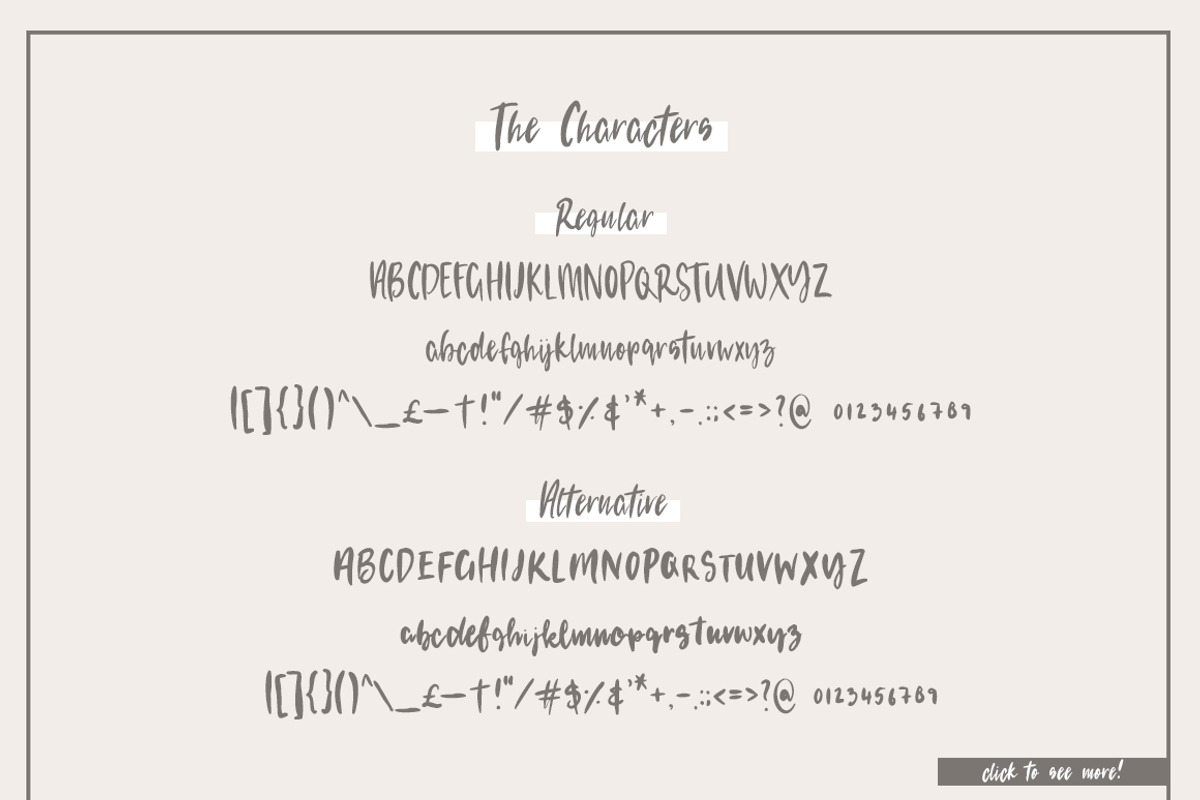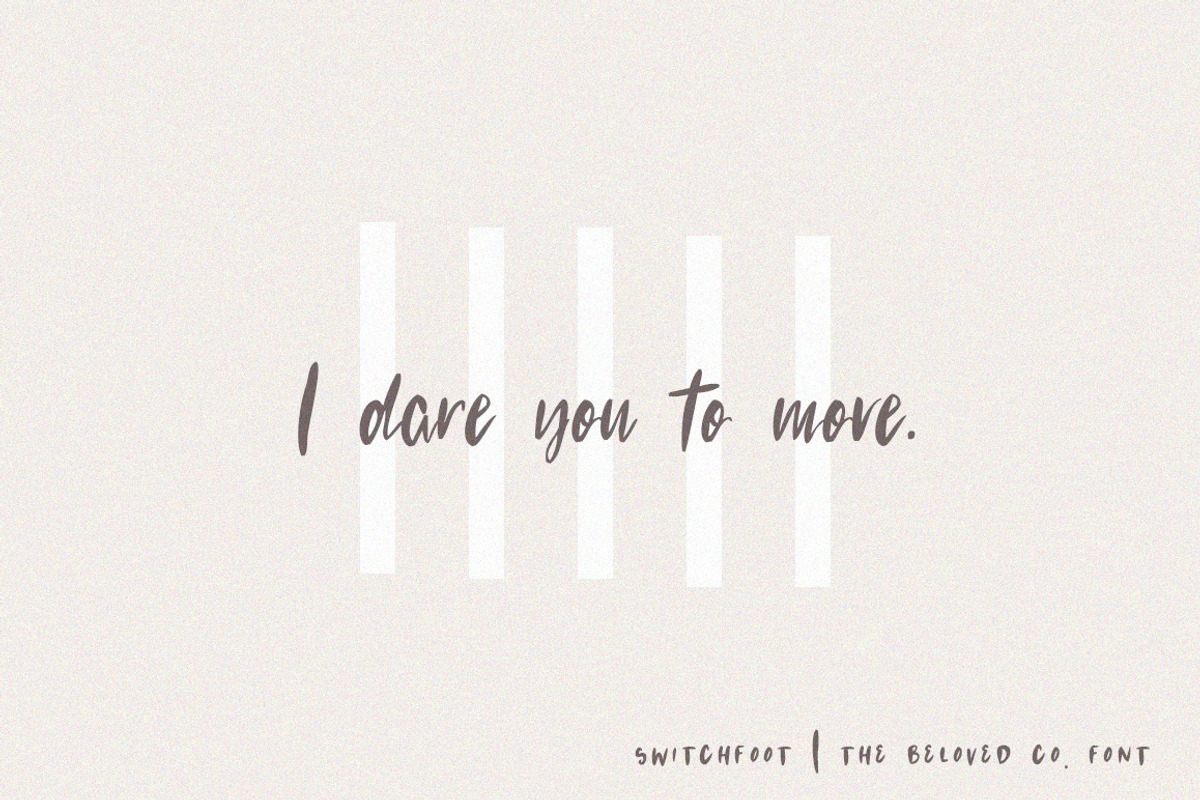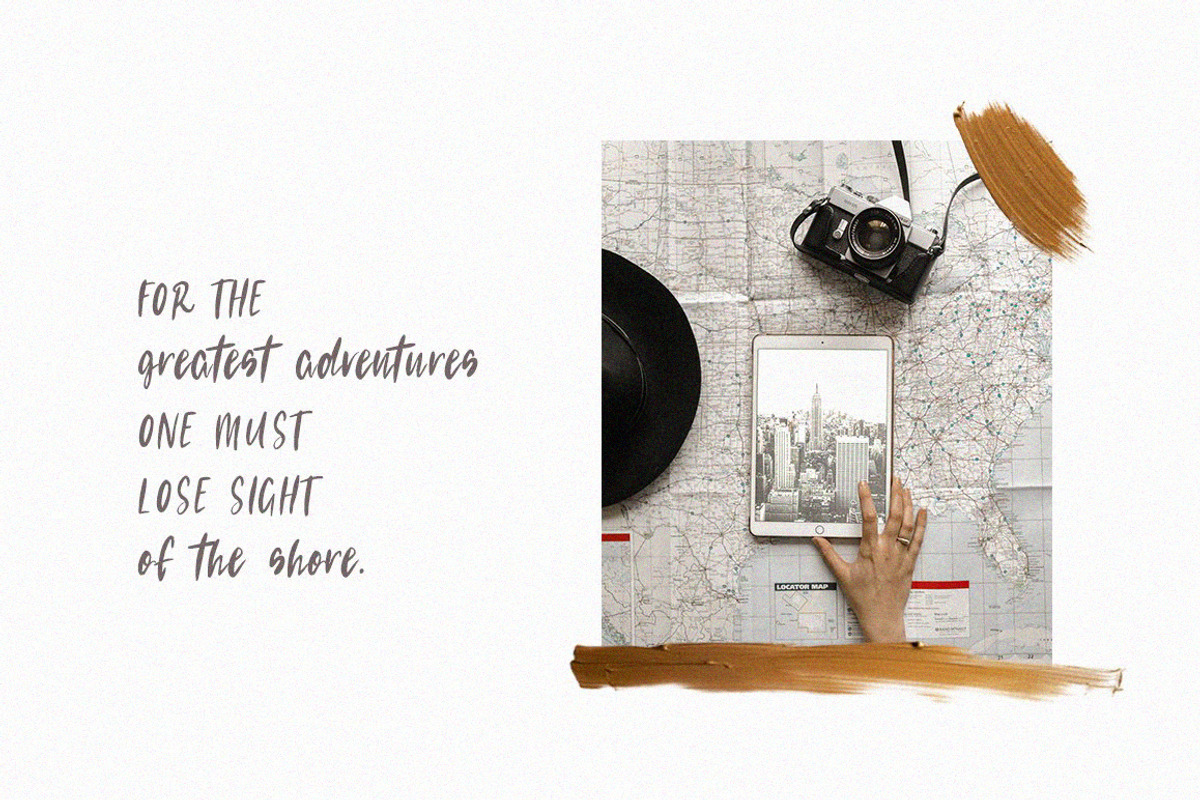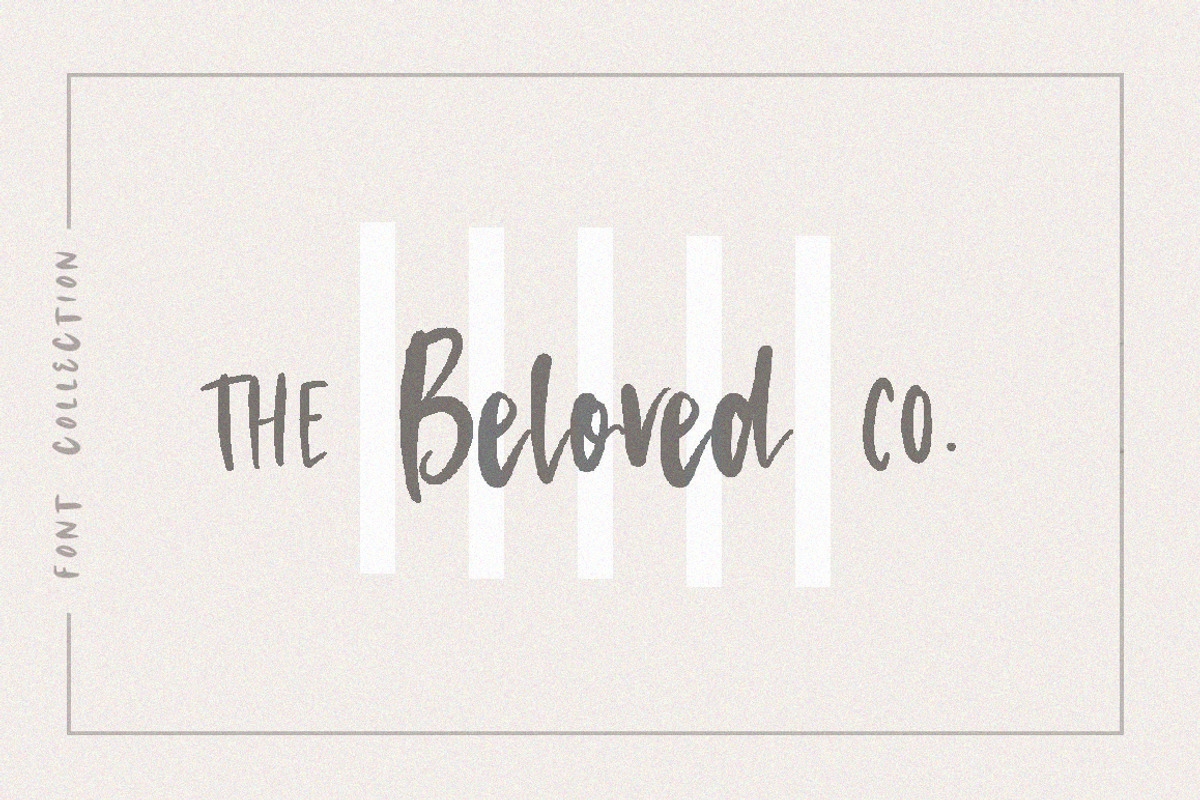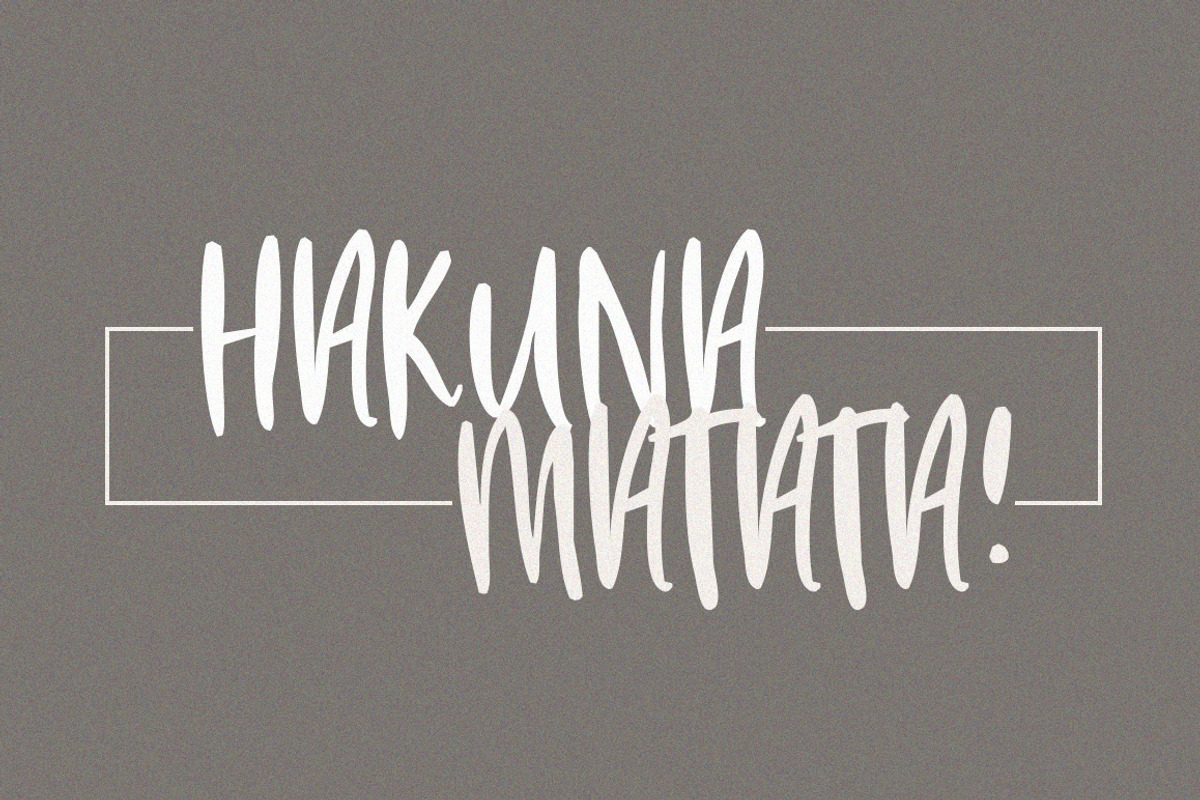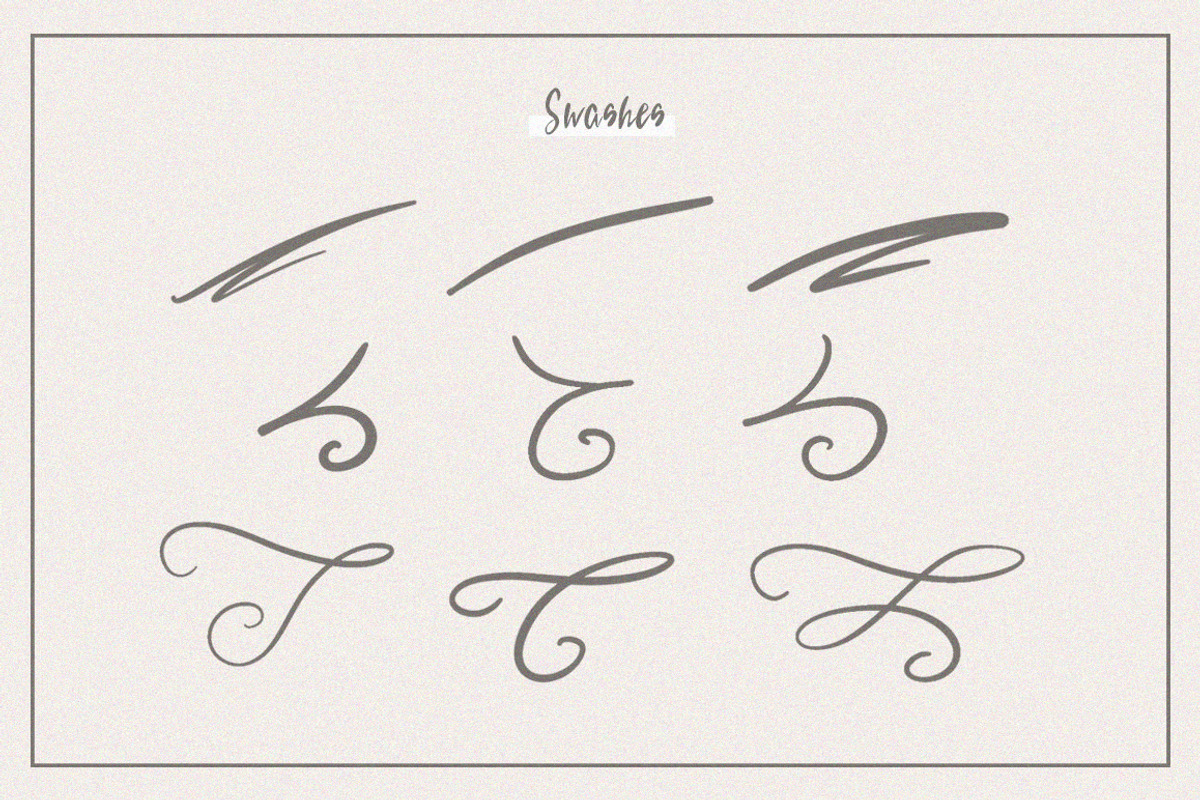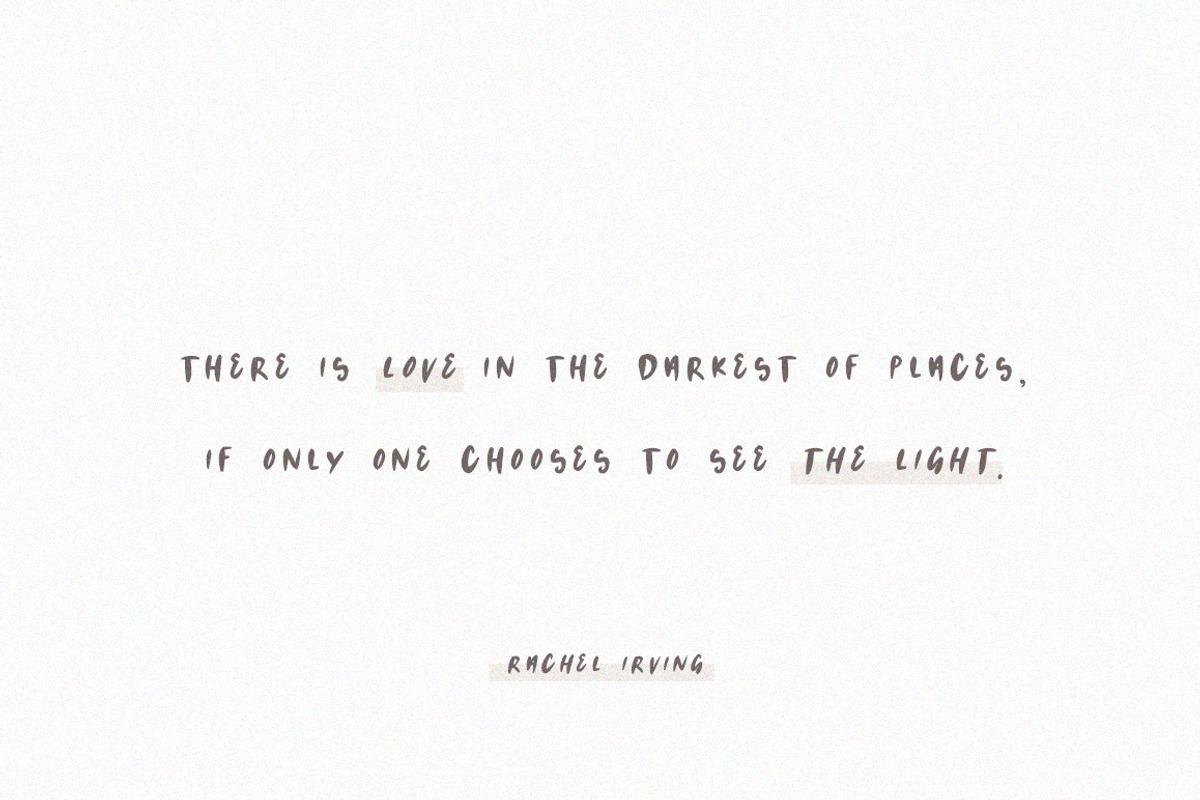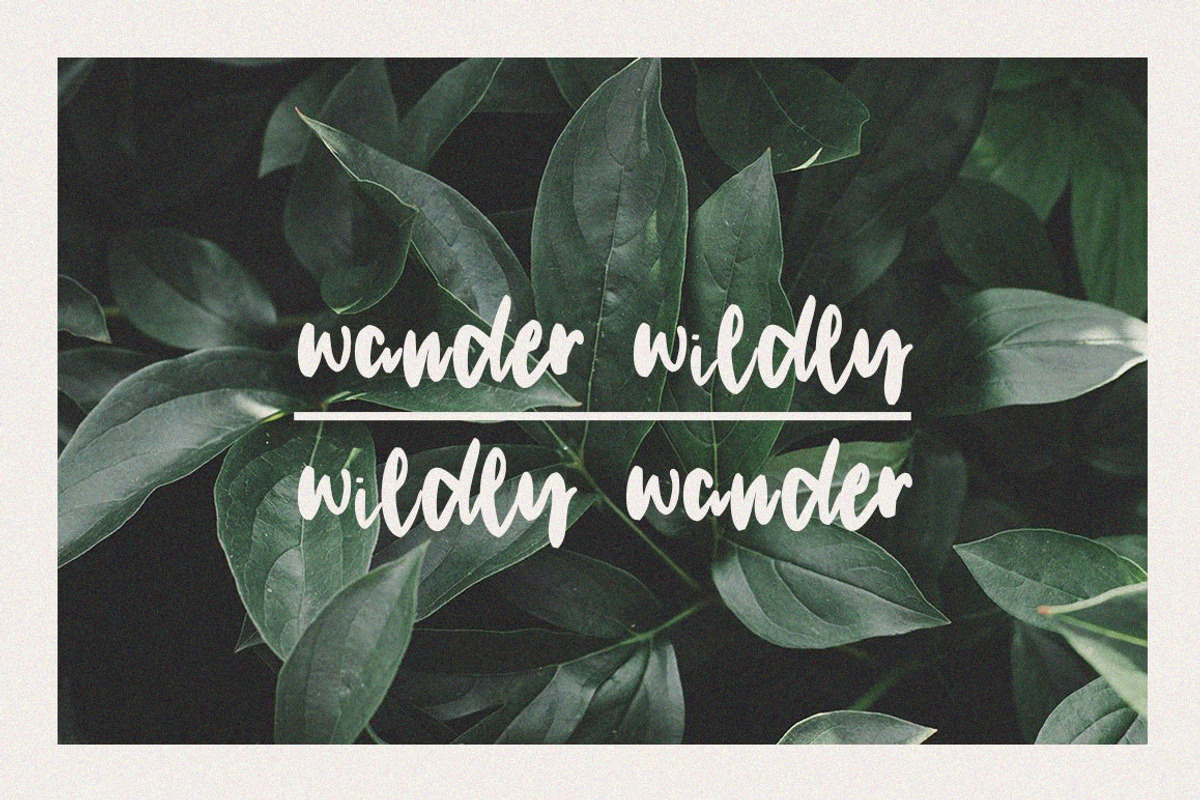
The Beloved Co. | Font Collection
Inspired from a place of true belonging and that sense of identity that goes beyond surface-deep, The Beloved Co. (Collective) is a digitally-styled, hand-written, four-part font collection.
For the beloved and those who belong – especially those who don't know it.